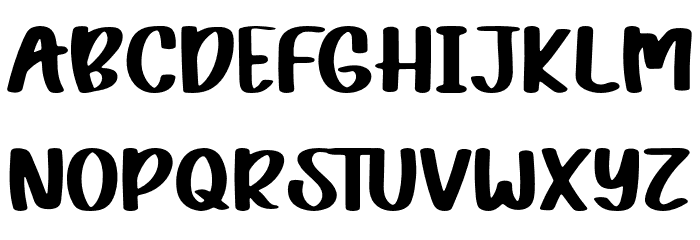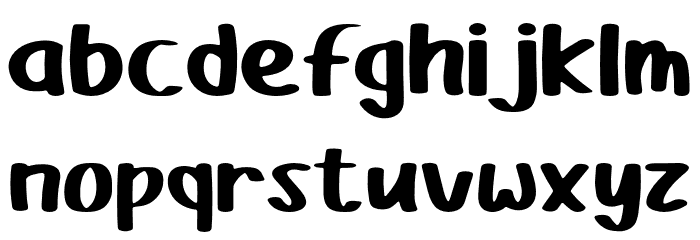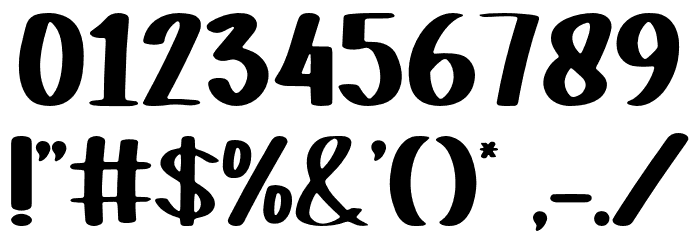
Sweet Banana Font
This playful and bold font features a handwritten style with smooth, rounded edges and a casual, friendly appearance. The characters are thick and slightly irregular, giving them a lively and dynamic feel. The uppercase and lowercase letters maintain a consistent style, with the uppercase being slightly more structured. The numbers are equally bold and maintain the playful aesthetic of the letters. Special characters are well-integrated, ensuring versatility in design projects. The overall look is approachable and fun, making it suitable for a variety of creative applications.
A bold, playful handwritten font with smooth, rounded edges.
- Font: Sweet Banana
- Proposed Projects: Ideal for children's books, playful branding, greeting cards, and social media graphics.
- Category: Handwritten
- Overall Style: Playful